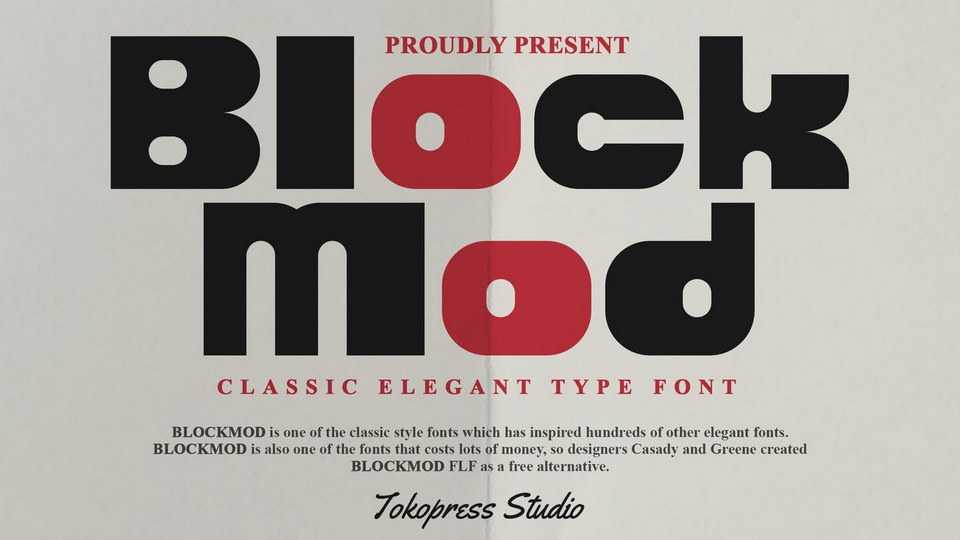
Download Blockmod font, a block modern typeface. Block, bold, stand out from the crowd. That is what Blockmod is all about. Being the loudest in society.